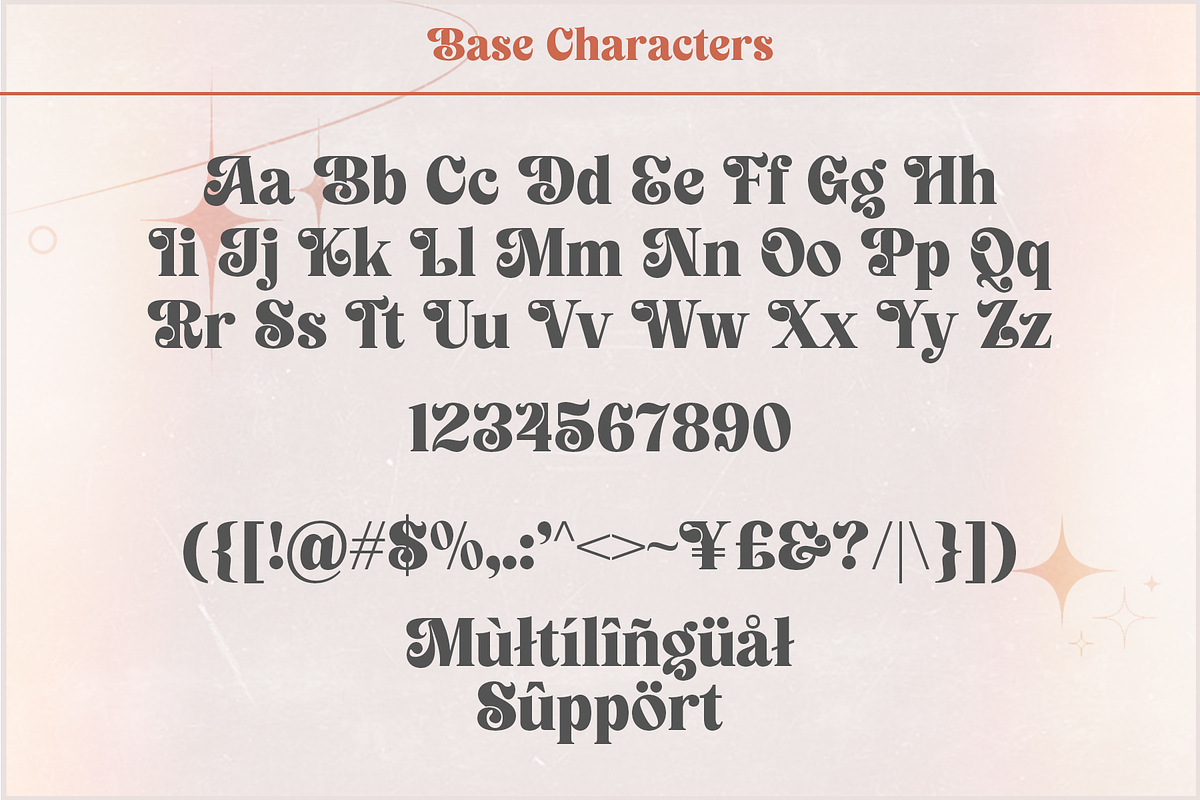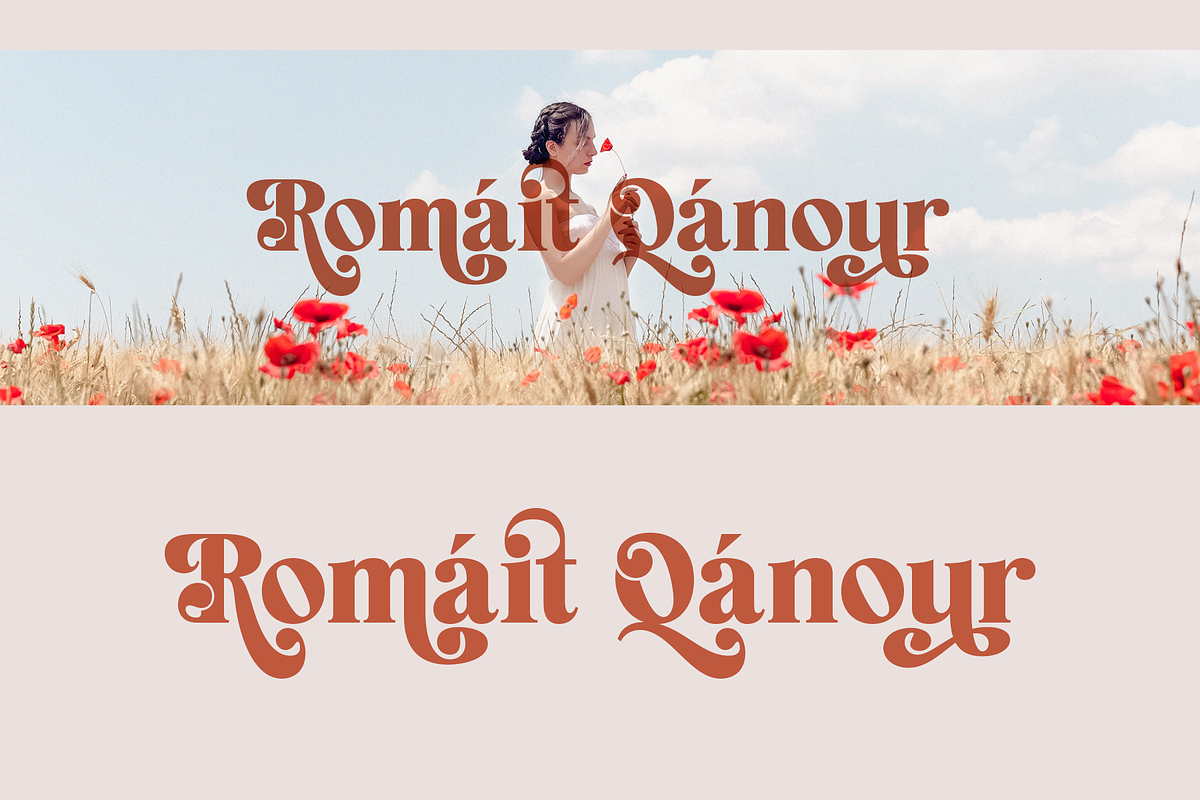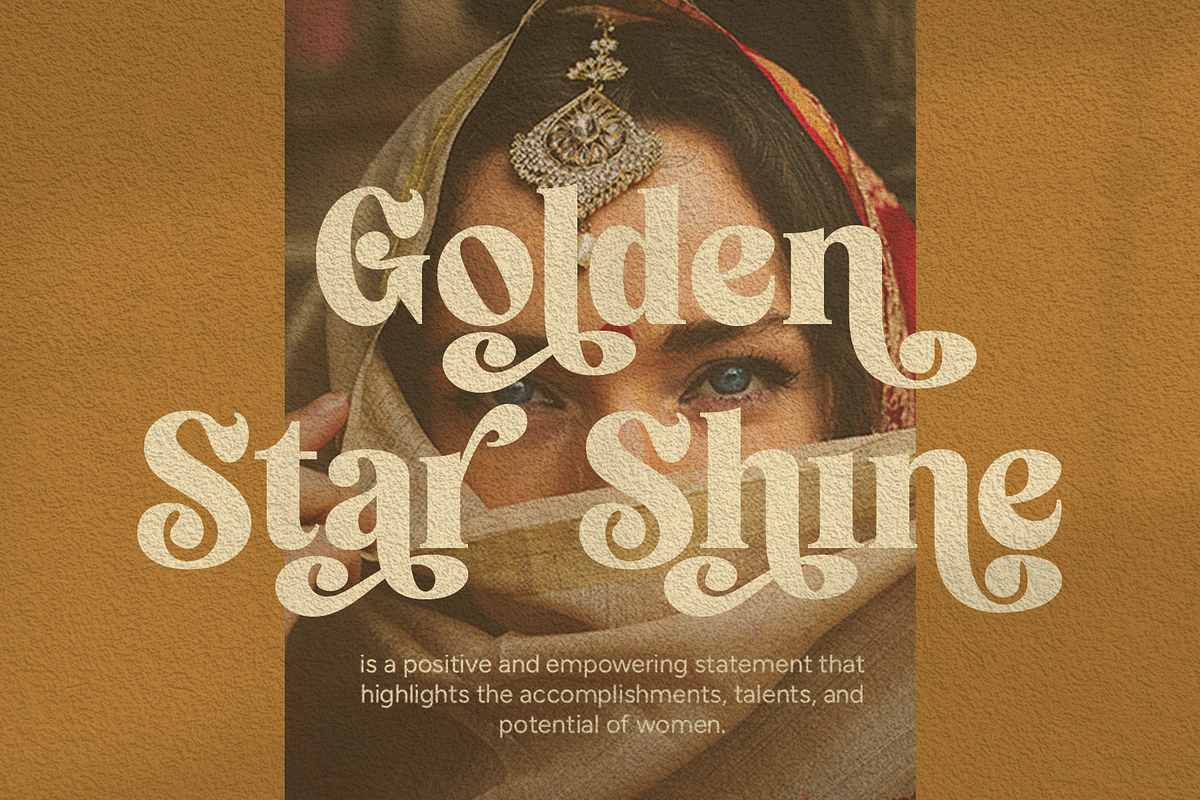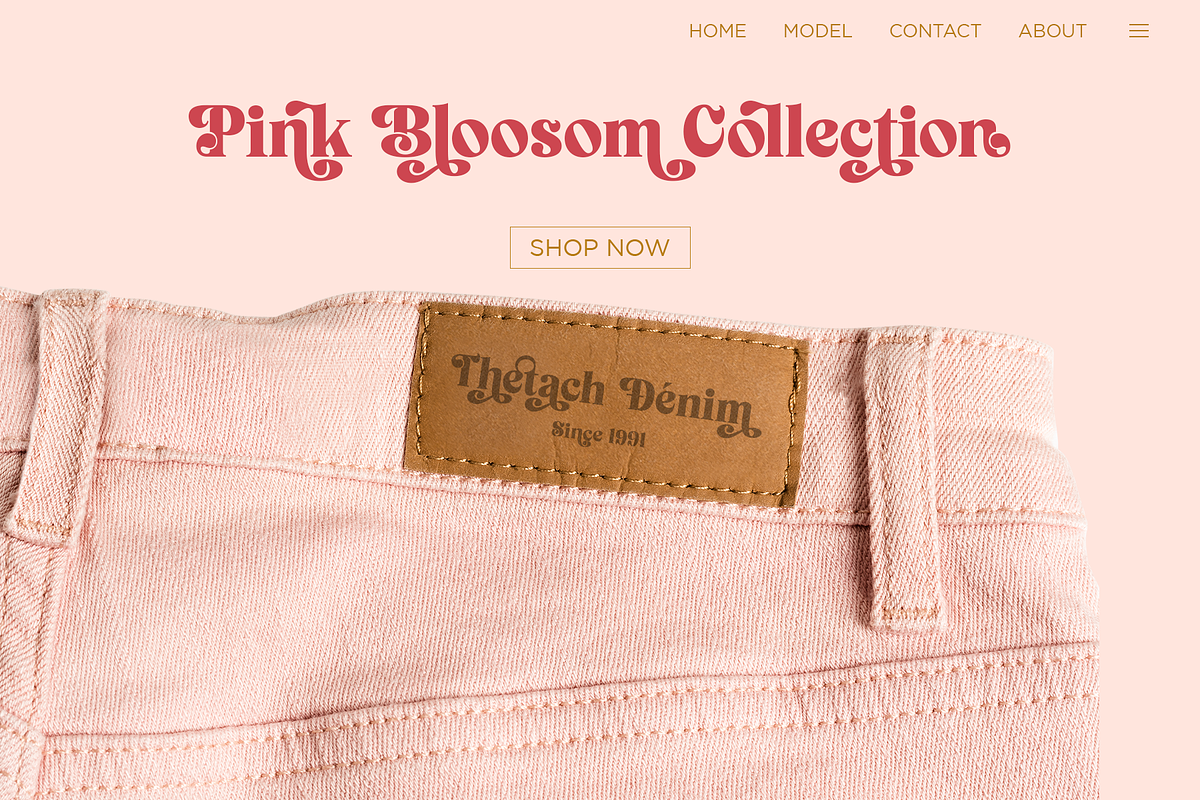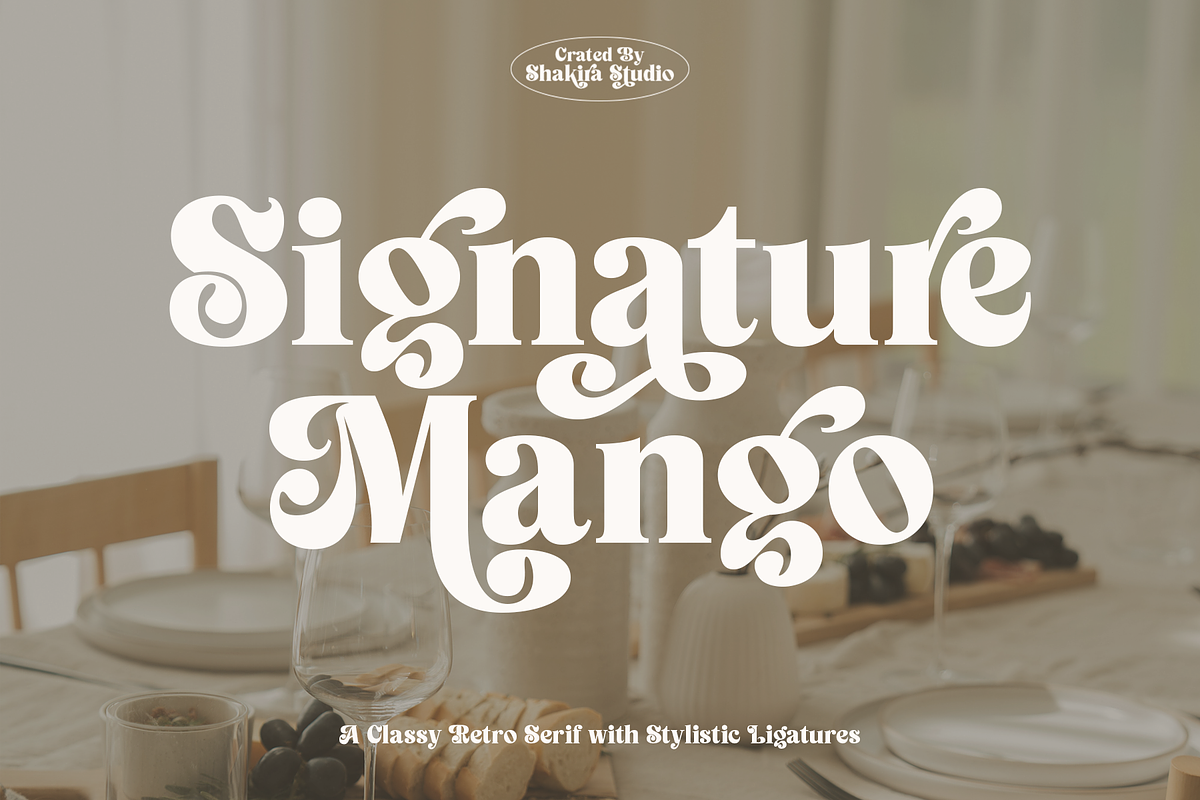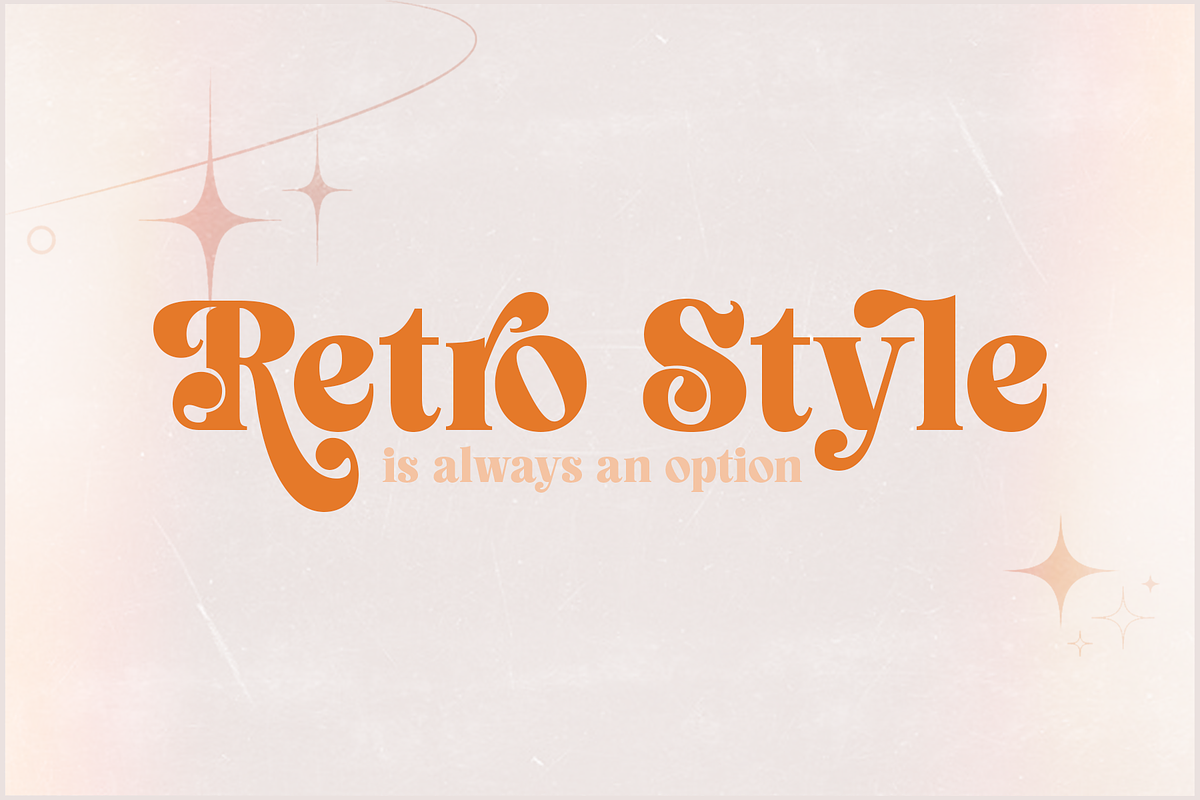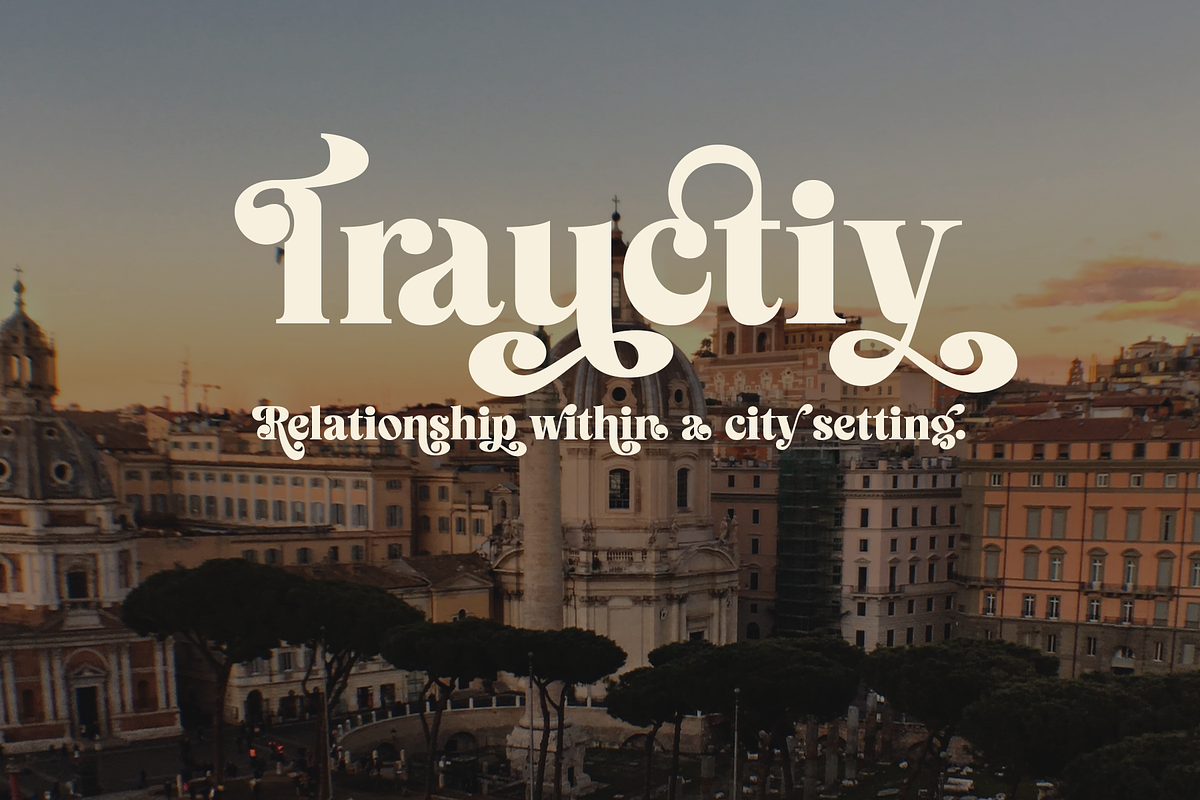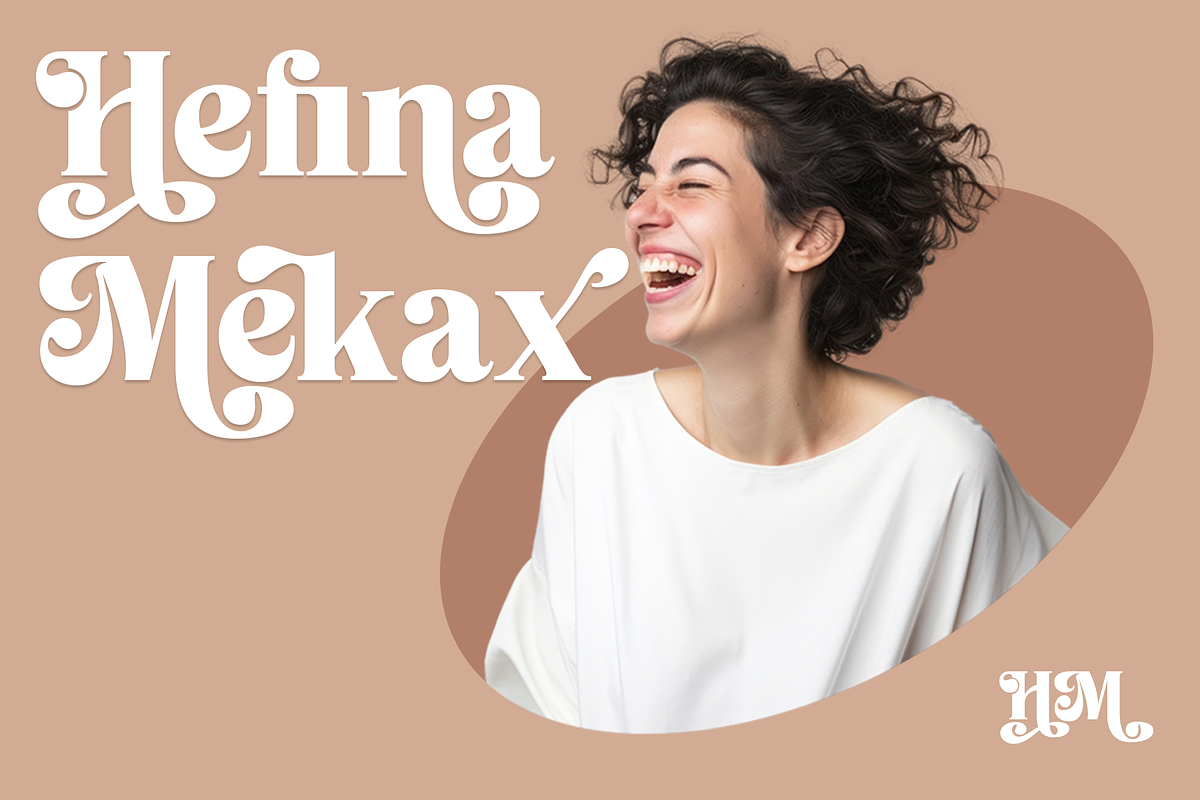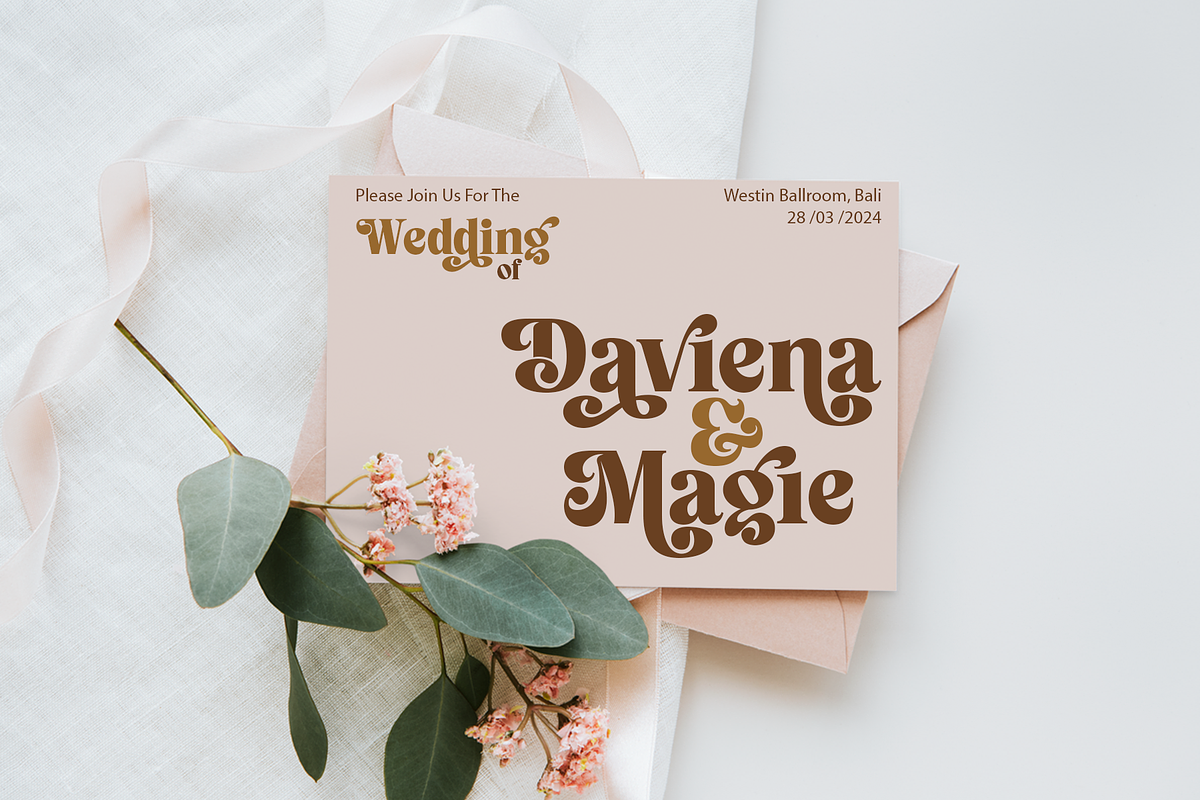
Signature Mango - Modern Retro Font
Introducing Signature Mango - The Epitome of Modern Retro Serif Elegance!
Signature Mango is the font that's redefining modern retro serif typography and setting the design world on fire. This font is the epitome of sophistication, seamlessly blending timeless retro aesthetics with the contemporary chic that's all the rage in today's design trends.
With its versatility and wide range of stylistic options, Signature Mango is your passport to creating stunning designs that stand out in today's competitive landscape. Whether you're designing a high-end fashion brand's logo, an upscale menu, or a luxurious wedding invitation, this font adds a touch of refined glamour that's in high demand right now.
- Opentype features ( ligature, alternate )